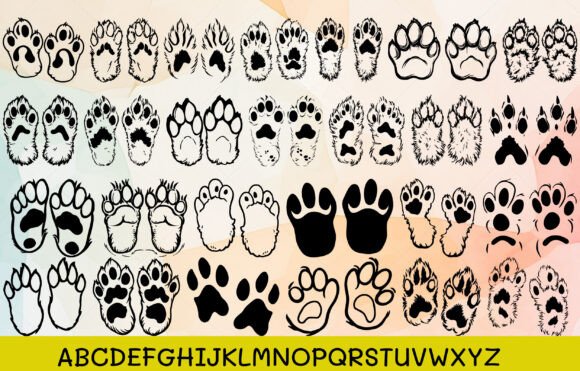
Unleash Creativity with Dog Paws Wow Wow Font: A Delightful Dingbat for Dog Lovers
Are you a dog lover, designer, or crafter looking for a unique and adorable font to add a personal touch to your projects? Look no further than the Dog Paws Wow Wow Font, a delightful dingbat font that features 26 star-inspired paw designs, each corresponding to a letter from A to Z. This versatile font set is perfect for a wide range of creative projects, from custom signs and cards to social media graphics and more.
What Makes Dog Paws Wow Wow Font So Special?
The Dog Paws Wow Wow Font is a one-of-a-kind dingbat font that offers a fresh and exciting way to add a personal touch to your designs. Here are just a few reasons why this font stands out:
- Unique and Adorable Designs: Each letter from A to Z features a unique and adorable star-inspired paw design, making it perfect for dog lovers and anyone who wants to add a touch of whimsy to their projects.
Ideas for Using Dog Paws Wow Wow Font
The Dog Paws Wow Wow Font is incredibly versatile, and can be used in a wide range of creative projects. Here are a few ideas to get you started:
- Custom Signs: Create custom signs for dog-friendly businesses, events, or even your own home.
- Cards and Invitations: Add a personal touch to your cards and invitations with adorable paw designs.
- Social Media Graphics: Use the Dog Paws Wow Wow Font to create engaging social media graphics, such as dog-themed memes or inspirational quotes.
- Crafting Projects: Add a touch of whimsy to your crafting projects, such as scrapbooking, sewing, or paper crafting.
Why Dog Lovers Will Love This Font
As a dog lover, you know how special your furry friend is. The Dog Paws Wow Wow Font is a fun and creative way to celebrate your love for dogs. Here are just a few reasons why dog lovers will adore this font:
- Adorable Designs: The paw designs are incredibly cute and will make you smile every time you use them.
- Personal Touch: The font adds a personal touch to your projects, making them extra special.
- Unique Way to Express Yourself: The Dog Paws Wow Wow Font offers a unique way to express your love for dogs and add a touch of personality to your designs.
The Dog Paws Wow Wow Font is a delightful dingbat font that’s perfect for dog lovers, designers, and crafters. With its unique and adorable star-inspired paw designs, versatile compatibility, and ease of use, this font is sure to bring a smile to your face and a touch of whimsy to your projects. So why wait? Download the Dog Paws Wow Wow Font today and start creating!